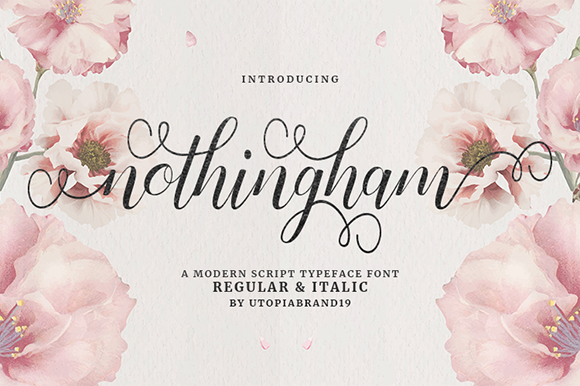
Nothingham Script Font
Font Name : Nothingham Script Font
Author : utopiabrand19
Unleash your creativity with Nothingham Script, an exquisite script font that exudes elegance and sophistication. This stunning font will elevate your designs to new heights, captivating your audience with its graceful curves and timeless allure.
Nothingham Script is the brainchild of the renowned font designer, utopiabrand19. With years of experience crafting fonts that resonate with designers and users alike, utopiabrand19 has poured their passion into creating this masterpiece.
As a script font, Nothingham Script embodies the art of handwritten calligraphy, bringing a touch of authenticity and charm to your creations. Its flowing strokes and delicate flourishes lend an air of sophistication that will make your designs stand out from the crowd.
Whether you're a seasoned designer or just starting your creative journey, Nothingham Script is the perfect choice for adding a touch of elegance and modernity to your projects. Its versatility makes it suitable for a wide range of design applications, from wedding invitations and branding materials to social media posts and website designs.
With Nothingham Script, you have the power to:
* Craft captivating headlines that grab attention and leave a lasting impression
* Design stunning logos that reflect your brand's unique personality
* Create eye-catching social media posts that engage your followers
* Elevate your website design with elegant typography that enhances user experience
Immerse yourself in the world of Nothingham Script, where creativity knows no bounds. Let your imagination soar as you explore the endless possibilities this exquisite font offers.